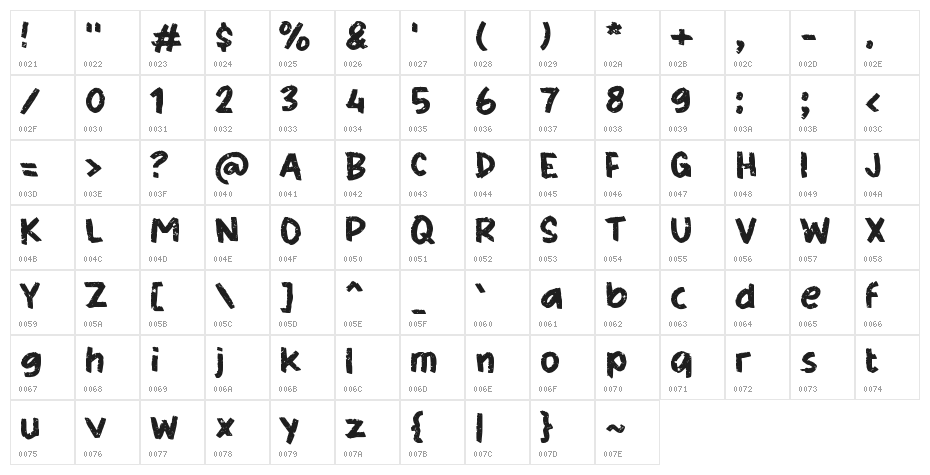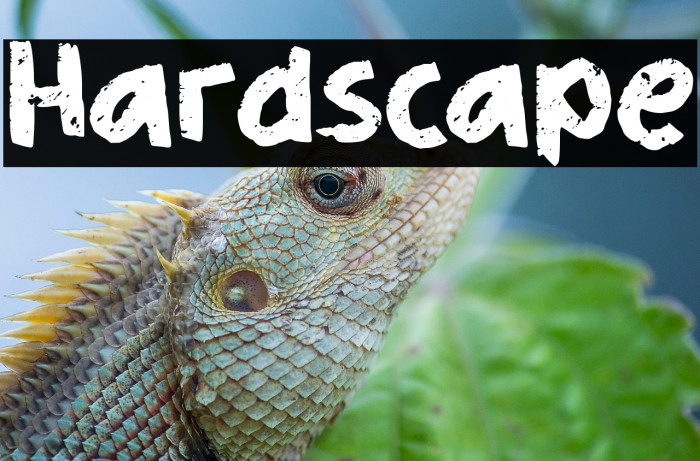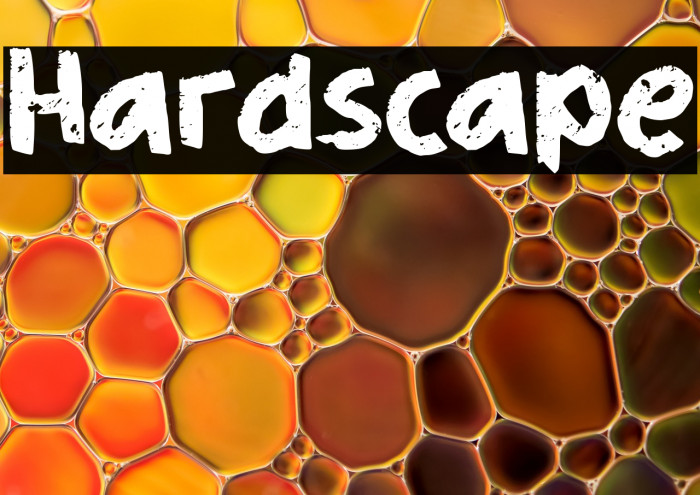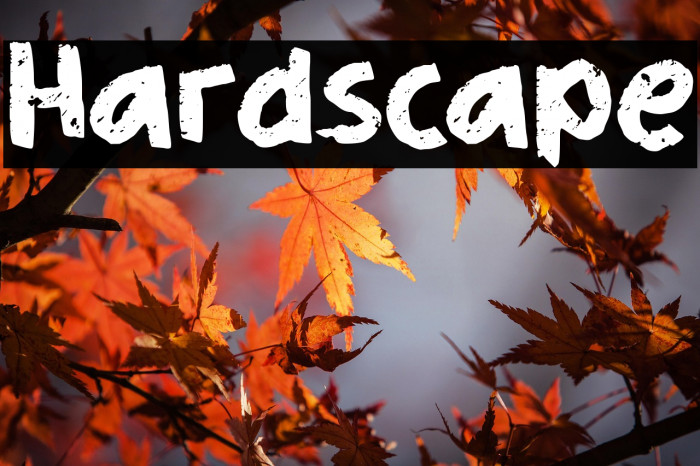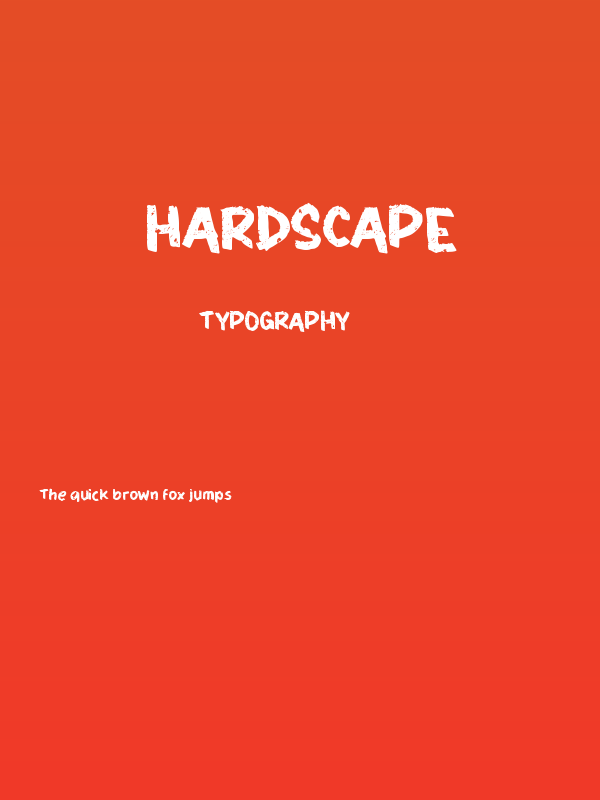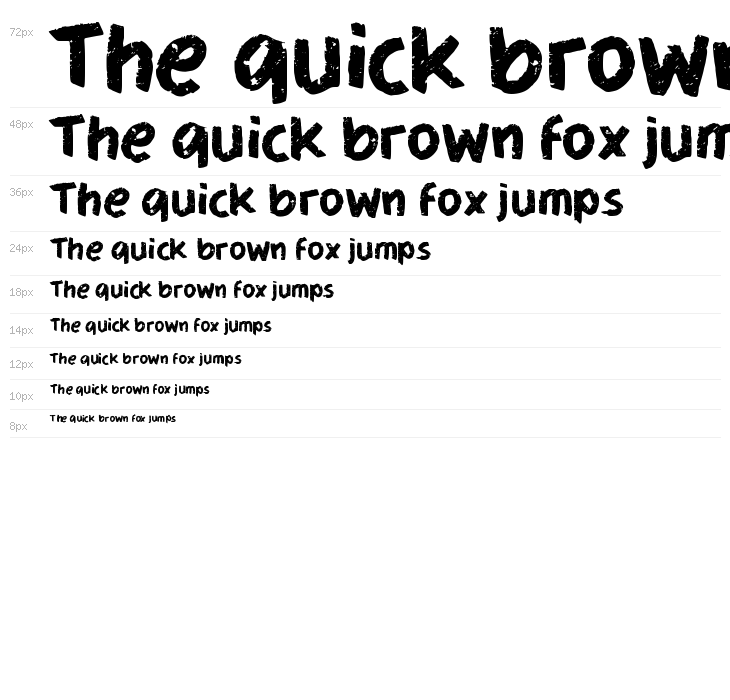
Hardscape Font
Hardscape Description
This font features a bold and rugged style with a distressed texture that gives it a gritty, hand-crafted appearance. The characters are thick and robust, with irregular edges that add to its raw and organic feel. The uppercase and lowercase letters maintain a consistent weight, while the numbers and special characters follow the same textured theme. This font's unique style makes it stand out, providing a sense of strength and individuality. The spacing between characters is relatively tight, enhancing its compact and impactful look. Its overall design is suitable for projects that require a bold statement and a touch of edginess.
| Overall Style | Rugged, Distressed, Bold |
| Proposed Projects | Ideal for posters, album covers, branding for outdoor or adventure products, and any design needing a bold, gritty aesthetic. |